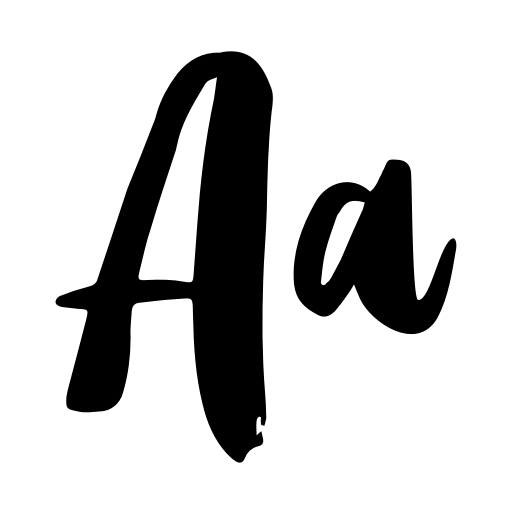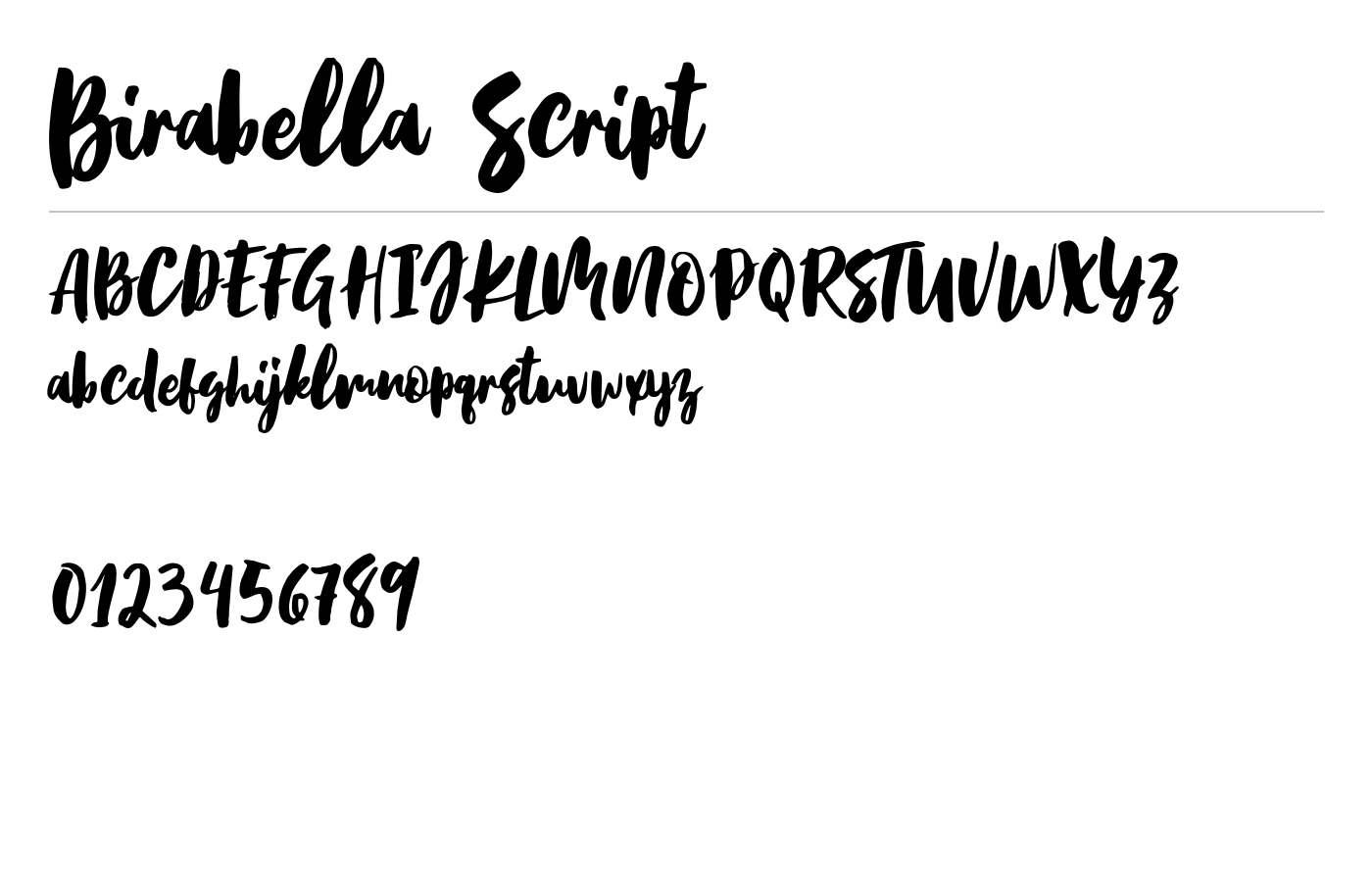
Birabella Script is a bold and lively handwritten font with a playful yet confident personality. Its thick, brush-like strokes and flowing shapes make it perfect for creative branding, invitations, and eye-catching headlines that need a personal, artistic touch. This font works well where a friendly, expressive style is desired to create warmth and charm.
Birabella Script Font
About Birabella Script Font
| Designer | FERDIANSYAH_IjemrockartSTD |